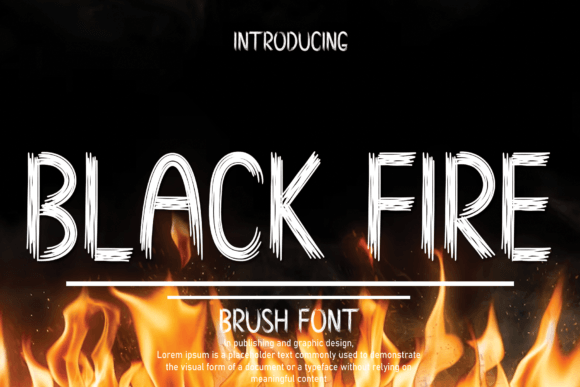
The Magic of Black Fire Font: A Designer’s New Best Friend
I still remember the design project that led me to discover the amazing Black Fire font. I was working on a motivational poster for a client, and I needed a font that would convey enthusiasm, energy, and a dash of playfulness. As I scrolled through my font library, I stumbled upon Black Fire – a handwritten brush script font that looked like it was written on a marker board. It was love at first sight! ✨
An Honest Review of Black Fire Font
So, what makes Black Fire font so special? Let’s dive into the good stuff and a few quirks I’ve discovered.
- 💥 **Expressive and playful**: Black Fire font has a unique, hand-crafted feel that adds a personal touch to any design.
- ✅ **Versatile**: Perfect for greeting cards, invitations, motivational quotes, and more.
- 🎨 **Great for mixed media designs**: The marker board effect blends seamlessly with illustrations, textures, and other design elements.
- 📚 **Large character set**: Includes a wide range of characters, numbers, and punctuation marks.
- 🤔 **Limited formal settings**: Due to its playful nature, Black Fire font might not be the best fit for formal or corporate designs.
- ⚠️ **Occasional inconsistencies**: As a handwritten font, you might notice slight variations in letterforms and spacing.
The Story Behind Black Fire Font
Black Fire font was designed with the intention of capturing the raw energy of a marker board. The designer aimed to create a font that felt approachable, friendly, and full of personality. By combining the imperfections of handwriting with the boldness of a marker, Black Fire font was born.
Q: What type of designs is Black Fire font best suited for?
A: Black Fire font is perfect for creative projects like greeting cards, invitations, motivational quotes, and mixed media designs.